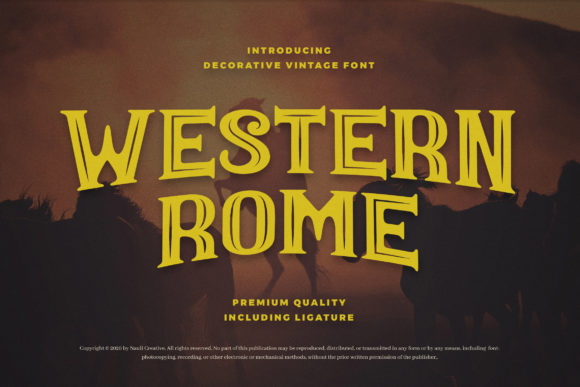
Behold the grandeur of Western Rome, a display font that evokes the timeless allure of ancient empires. Immerse yourself in the vintage charm of this font, where each letter carries a story of strength and resilience. Whether you're crafting fashion websites, designing posters, or creating logos, Western Rome will elevate your designs to new heights.
With its bold and commanding presence, Western Rome commands attention. Its carefully crafted glyphs exude an air of sophistication, making it the perfect choice for capturing the essence of any creative project. Unleash your imagination and let Western Rome take your designs on an unforgettable journey.
Fashion enthusiasts, rejoice! Western Rome is your ultimate companion in expressing your passion for style. This font will transform your fashion website into a captivating online haven, attracting visitors with its vintage flair. Showcase your designs with elegance and charisma, allowing your brand to shine brightly in the digital realm.
Designers, let Western Rome be your muse. Let its vintage charm inspire you to create designs that are both timeless and visionary. Explore new possibilities, push boundaries, and leave your mark on the creative world. With Western Rome by your side, there are no limits to what you can achieve.